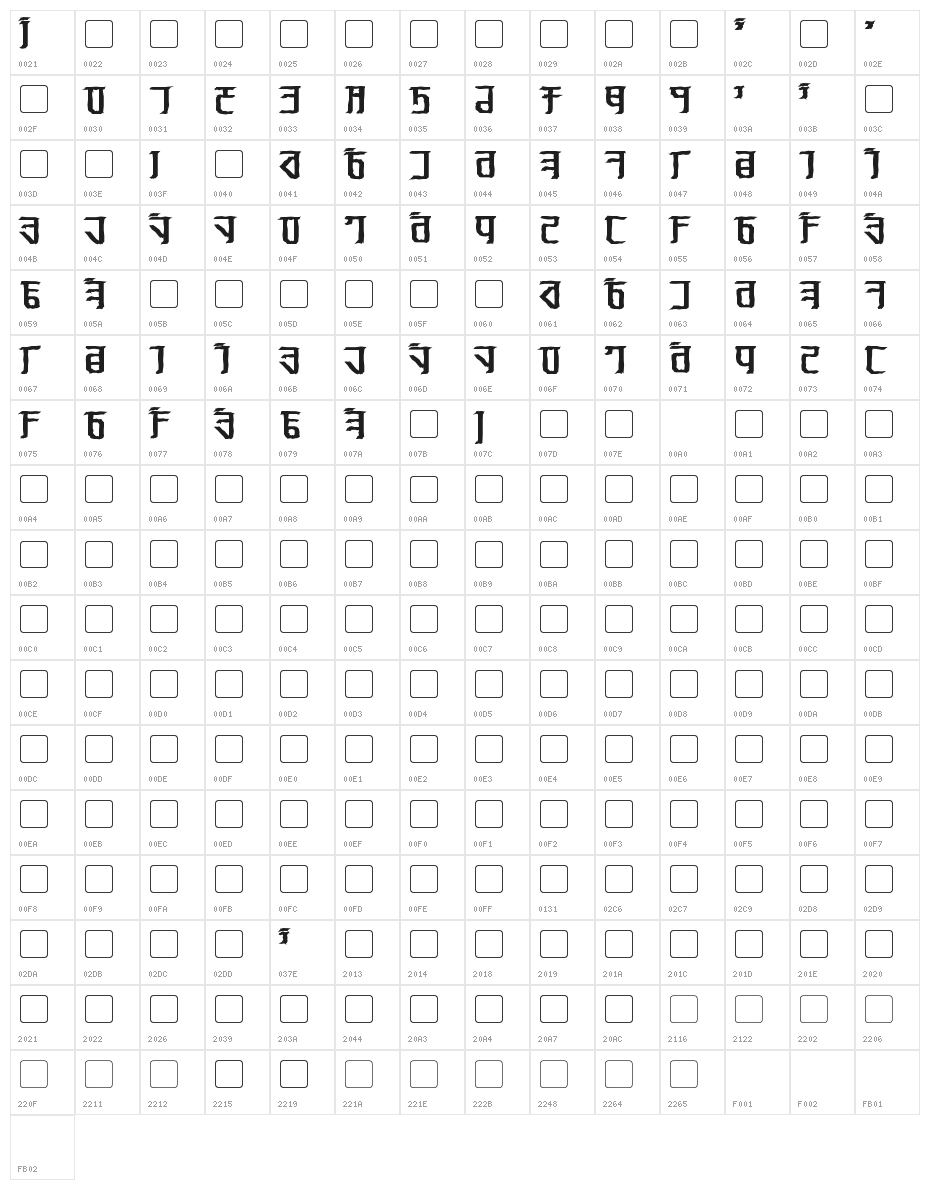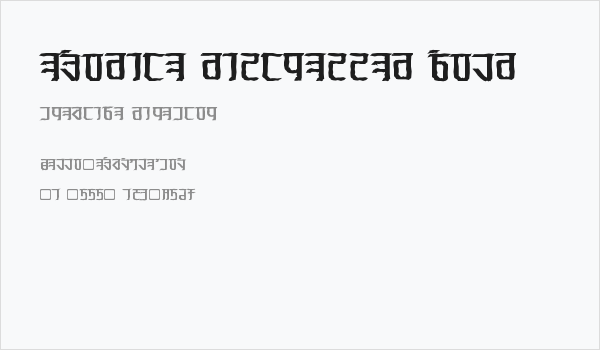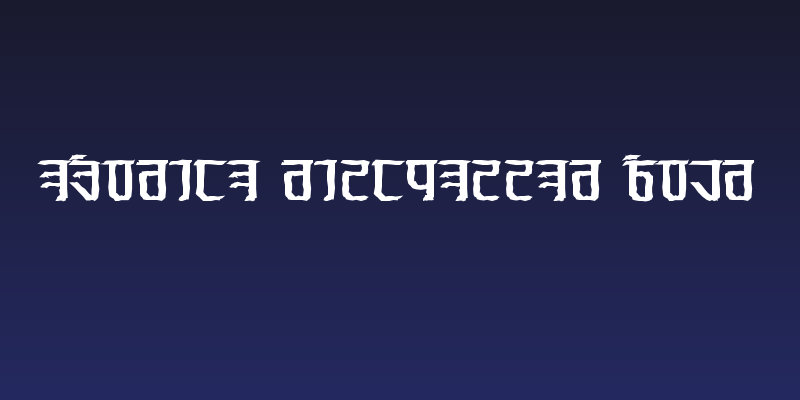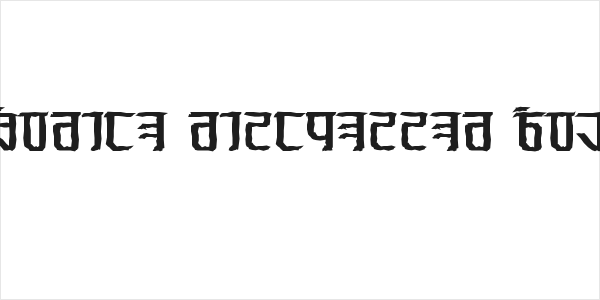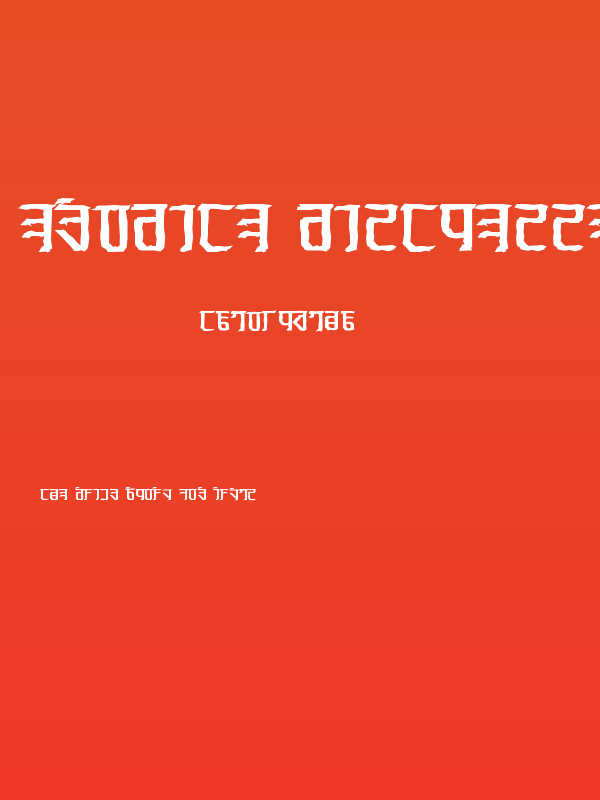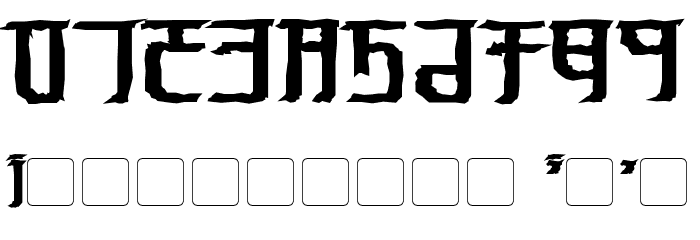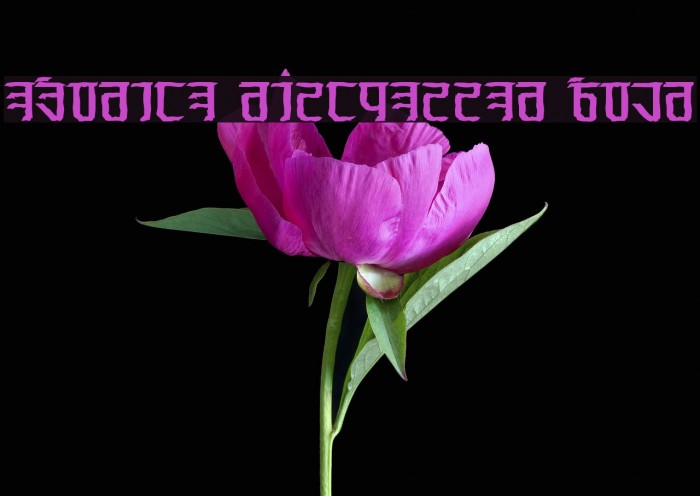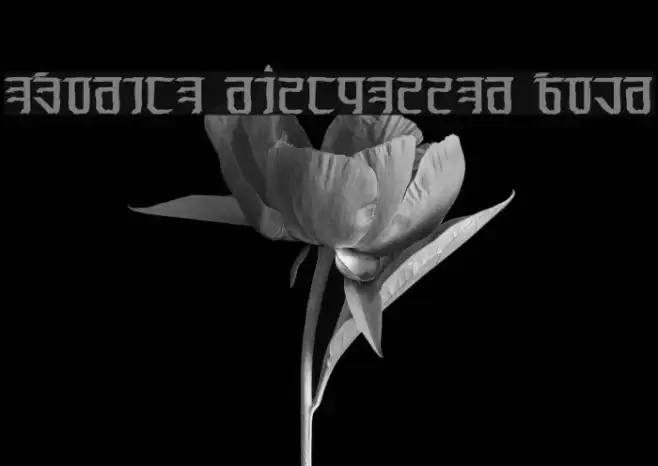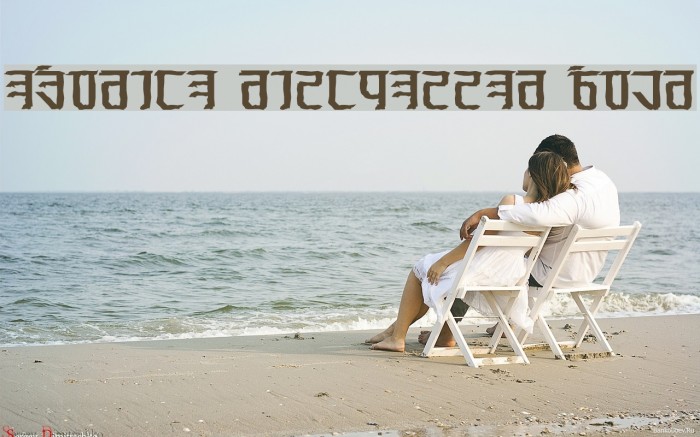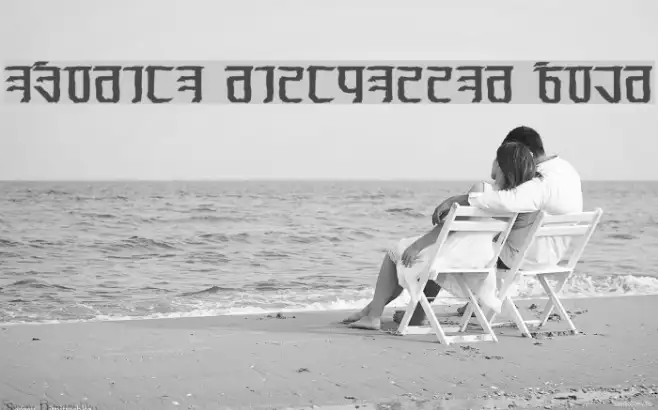
Exodite Distressed Bold Font
Exodite Distressed Bold Description
This font features a bold, distressed style with a gothic influence, characterized by sharp, angular edges and a heavy weight. The letters have a rough, textured appearance, giving them a worn and rugged look. This style is reminiscent of medieval script, with a modern twist that adds a unique, edgy flair. The uppercase and lowercase letters maintain a consistent design, while the numbers and special characters follow the same aesthetic, ensuring uniformity across all characters. The font's boldness and distressed detailing make it stand out, ideal for creating impactful designs.
| Overall Style | Modern Gothic |
| Proposed Projects | Ideal for projects requiring a dramatic and edgy look, such as posters, album covers, or branding for alternative or rock-themed events. |